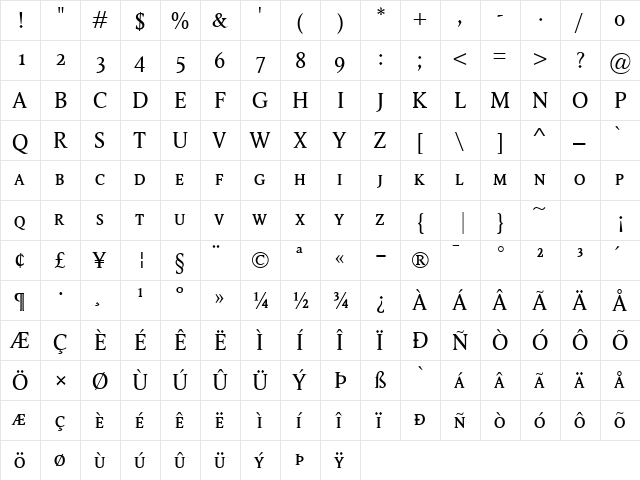
Ragnar SC Regular
Design Context for Ragnar SC Typeface
Ragnar SC takes a measured approach to typography — its balanced proportions and neutral character make it a reliable workhorse for both digital and print work.